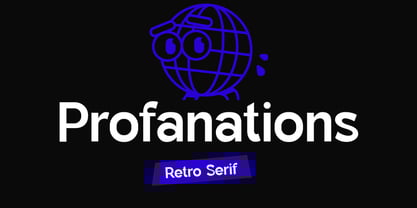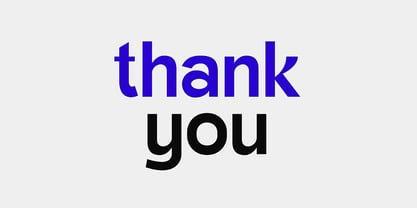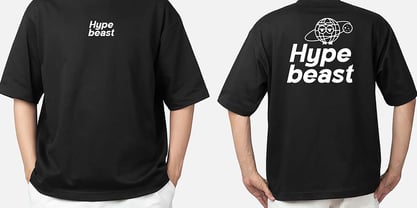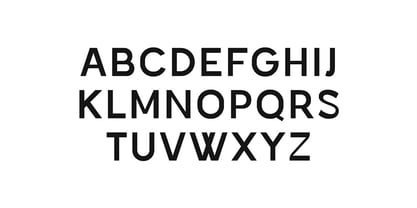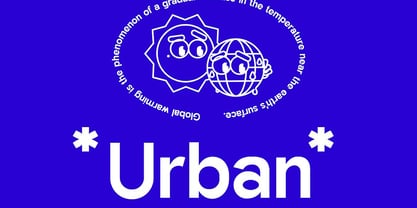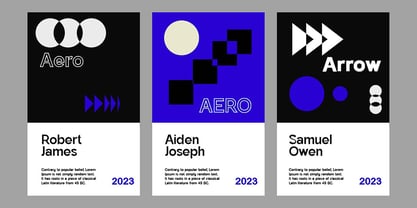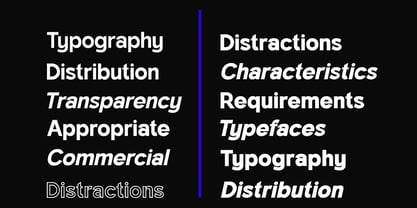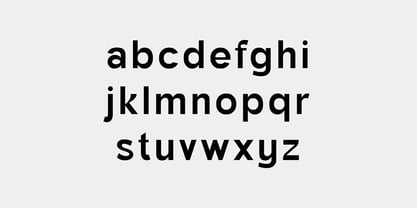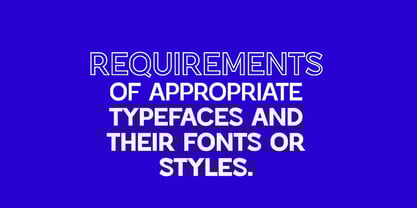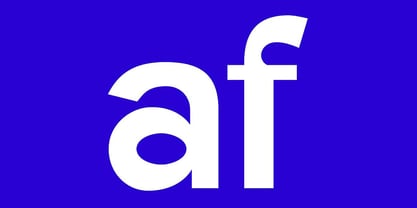
Profanations Retro Sans
The Profanations Retro Sans Font Family was designed by Hero and published by UICreative. Profanations Retro Sans contains 12 styles and family package options. More about this family
Introducing our new product the name is Profanations Retro Sans Serif Font Family. Profanations Retro Sans Serif Font Family that feels beautiful classy, elegant, and modern. This font is perfectly suited for a wide variety of projects, such as signature, stationery, logo, wedding, typography quotes, magazine or book covers, website headers, branding, packaging design, and more. Also, fashion-related branding or editorial design displays both masculine and feminine qualities.